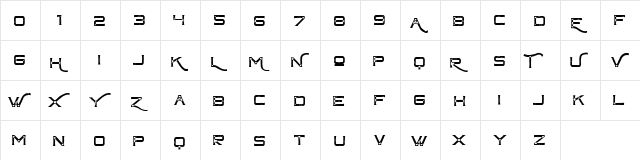
ChapterOne Vintage Free Regular
| Foundry | Dikas Studio |
| Designer | Andika Setiawan |
Design Context for ChapterOne Vintage Free Typeface
ChapterOne Vintage Free has the warm character of retro typography — evoking diners, record sleeves, and the golden age of print advertising.
Font Pairing: Combine ChapterOne Vintage Free with a simple slab or neutral sans — period-accurate companions reinforce the vintage feel without competing for attention.
Pro Tip: Use ChapterOne Vintage Free for headlines and pull quotes rather than body copy — its personality is best appreciated in short, focused bursts.